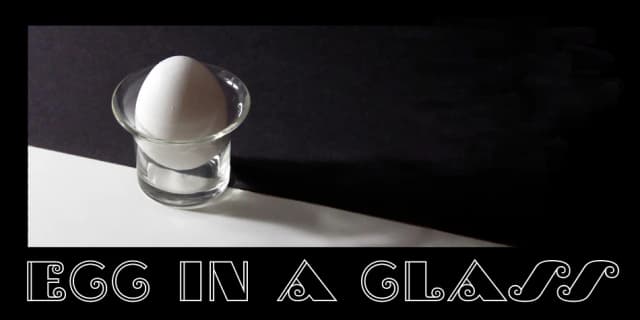
Sonrisa brings a lighthearted, friendly spirit to any design. This decorative typeface from CastleType draws its structural foundation from the geometric bones of Koloss while adding a distinctly warmer personality. Playful curves and open letterforms create visual movement without veering into chaos, making it particularly strong for wedding invitation suites, greeting card lettering, boutique branding projects, and DIY craft labels that need real character and warmth.
Eight weights deliver genuine flexibility across the family, with each version holding onto the character's gentle rhythm and approachability. True small caps and oldstyle numerals provide the kind of refinement that shines in detail work and editorial applications. Comprehensive support for Latin, Greek, and Cyrillic alphabets means your work reaches audiences far beyond English speakers. With its generous x-height, Sonrisa makes headlines grab attention naturally and feel bright and energetic on the page.
When you need body text or supporting typography, pair Sonrisa with something minimal and clean, like a straightforward sans-serif that lets this decorative voice shine without conflict. Its quirky warmth paired with a restrained companion creates elegant visual balance on the page. You'll find Sonrisa on Creative Fabrica, ready to become a reliable go-to favorite in your type library.
Sonrisa Font is a decorative font that shines as a display or heading face. Pair it with a clean sans-serif or serif font for body text β the contrast creates a clear hierarchy while the two styles stay balanced and easy to read.
Sonrisa Font